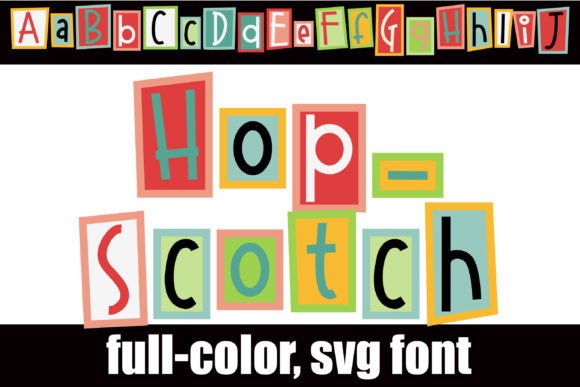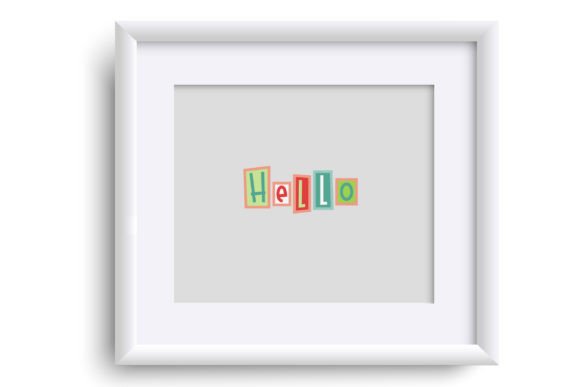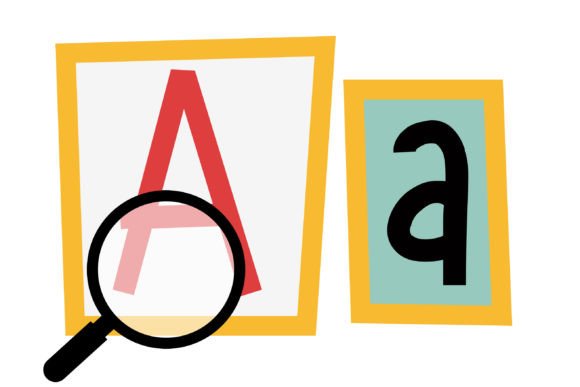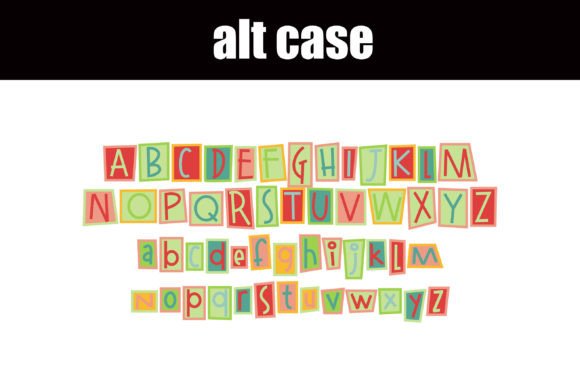
Hopscotch Font
About the Hopscotch Font
The Hopscotch Font is here to transform your projects with its distinctive character and style. This full-color font features a childish font in colorful hopscotch squares. There is an alt case with additional colors you can access through your system’s character map. This font works best for titles, displays, posters and more. Please note color fonts will show as black in non compatible programs. This font type is compatible with Silhouette Studio.